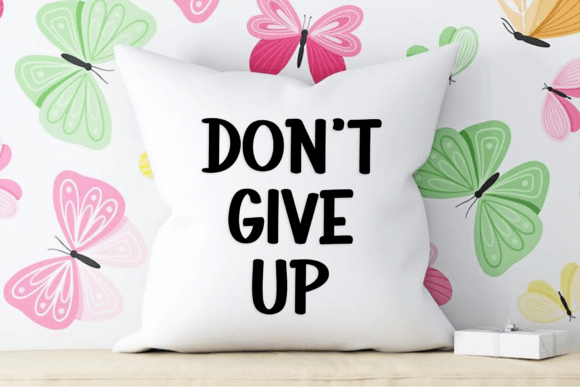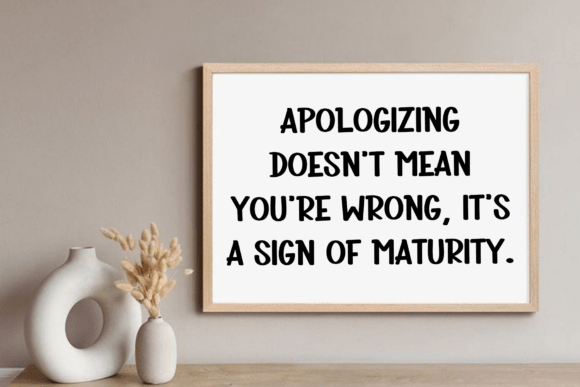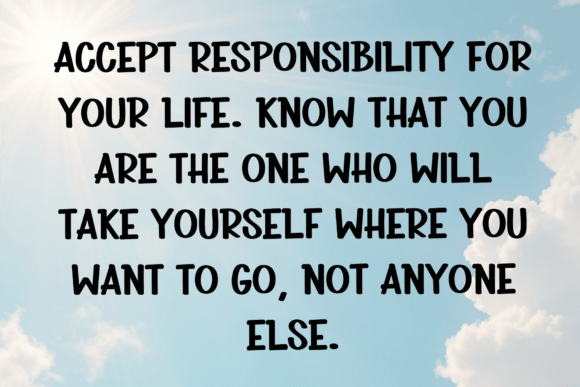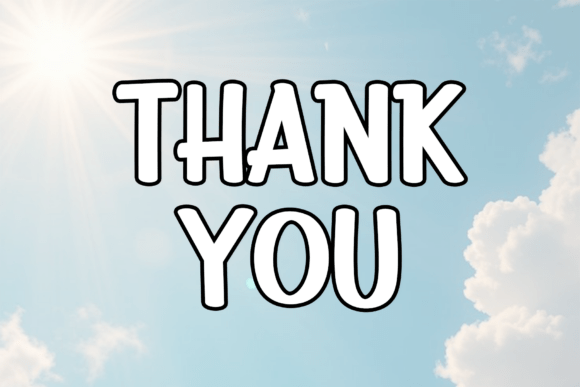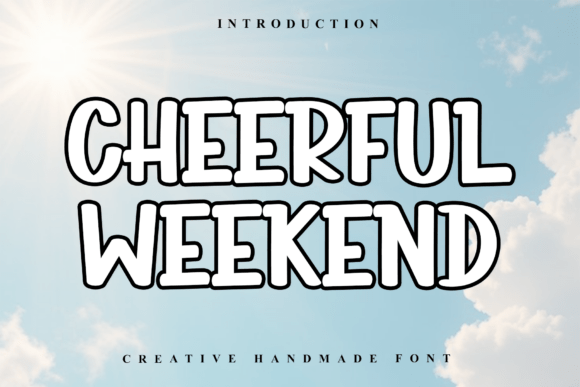
Introducing Cheerful Weekend Font: The Perfect Blend of Modern Simplicity and Playful Charm
Are you tired of using the same old fonts for your design projects? Look no further than the Cheerful Weekend Font, a casual display font that brings a fresh and friendly touch to any project. With its modern simplicity, playful vibe, and versatile character, this font is perfect for designers and crafters looking to add a unique and eye-catching appeal to their work.
What Makes Cheerful Weekend Font So Special?
Cheerful Weekend Font is a carefully crafted display font that blends clean shapes, soft edges, and well-balanced letterforms to create a charming and approachable design. Its modern simplicity makes it perfect for a wide range of applications, from posters and branding to packaging and social media graphics. Whether you’re looking to create a bold statement or a subtle impression, this font delivers both readability and personality.
Key Features of Cheerful Weekend Font
- Clean Shapes: The font features clean and simple shapes that provide a clear and concise visual identity.
- Soft Edges: The soft edges of the font add a touch of warmth and approachability, making it perfect for designs that require a friendly tone.
- Well-Balanced Letterforms: The letterforms are carefully crafted to provide a sense of balance and harmony, ensuring that the font is easy to read and visually appealing.
- Versatile Character: The font has a versatile character that makes it suitable for a wide range of applications and design styles.
- Eye-Catching Appeal: The font’s unique design and playful vibe make it perfect for designs that require a bold and eye-catching statement.
Why Choose Cheerful Weekend Font?
There are many reasons why designers and crafters should choose Cheerful Weekend Font for their projects. Here are just a few:
- Unique Design: The font’s unique design and playful vibe make it stand out from more traditional fonts.
- Easy to Read: The font’s clean shapes and well-balanced letterforms make it easy to read, even at smaller sizes.
- Versatile: The font is suitable for a wide range of applications and design styles, making it a great addition to any designer’s toolkit.
- Time-Saving: With Cheerful Weekend Font, designers can save time and effort by using a pre-designed font that is both stylish and effective.
How to Use Cheerful Weekend Font
Cheerful Weekend Font is perfect for a wide range of design projects, including:
- Posters: Use the font to create eye-catching posters that grab attention and communicate your message.
- Branding: The font’s playful vibe and modern simplicity make it perfect for branding and logo design.
- Packaging: Add a fresh and friendly touch to your packaging designs with Cheerful Weekend Font.
- Social Media Graphics: Use the font to create engaging and shareable social media graphics that stand out from the crowd.
In conclusion, Cheerful Weekend Font is a unique and versatile display font that brings a fresh and friendly touch to any project. With its modern simplicity, playful vibe, and eye-catching appeal, it’s perfect for designers and crafters looking to add a unique and stylish element to their designs. Whether you’re creating posters, branding, packaging, or social media graphics, Cheerful Weekend Font is a great choice.